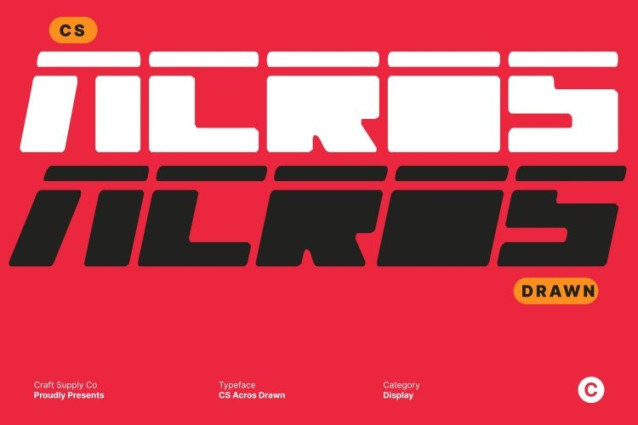
CS Acros Drawn Font This is a futuristic display font driven by bold, digital energy and a strong visual presence. Its blocky, techno-inspired structure creates an immediate sense of innovation and forward motion, making it ideal for designs that aim to feel modern, powerful, and cutting-edge.
Blocky Techno Forms for High-Impact Design
The solid, geometric letterforms give this font a confident and commanding look. Sharp angles and structured proportions reflect a high-tech aesthetic, ensuring every word stands out clearly. This bold construction makes it especially effective for large-scale typography such as headlines, titles, and covers.
Artistic Drawn Effect with Expressive Character
What sets this font apart is its drawn effect, which introduces a subtle handcrafted texture to the precise digital forms. This artistic layer softens the rigid geometry, adding personality and visual depth while preserving its futuristic identity. The result is a font that feels both technological and expressive.
Perfect for Futuristic Branding and Creative Projects
This font is perfect for futuristic design, tech branding, book covers, posters, and experimental visuals. Its combination of techno structure and artistic texture allows designers to create bold, memorable compositions that balance digital precision with creative character.